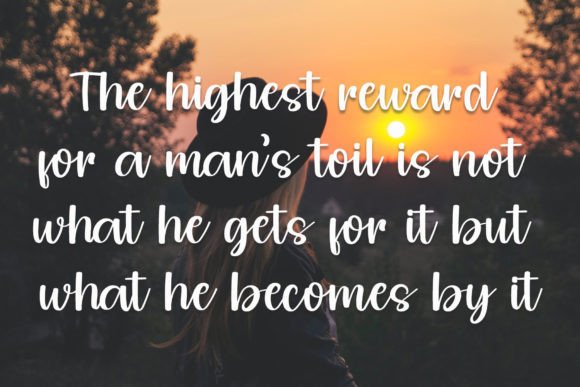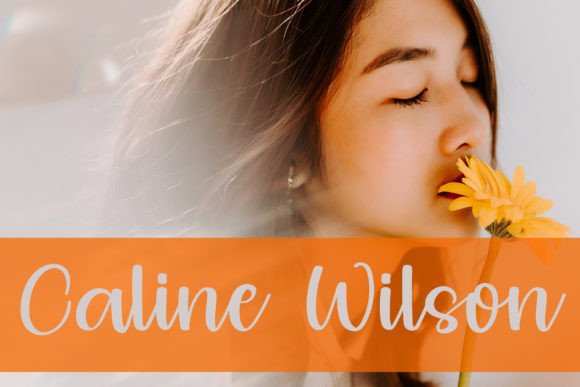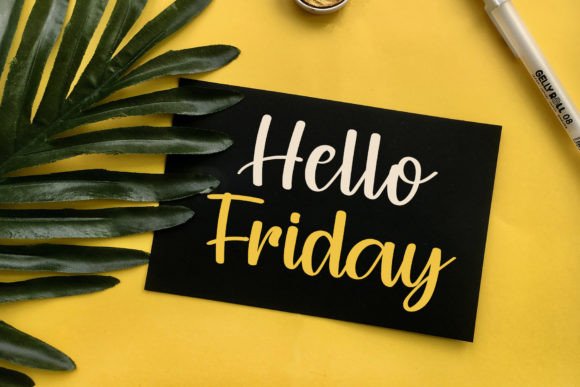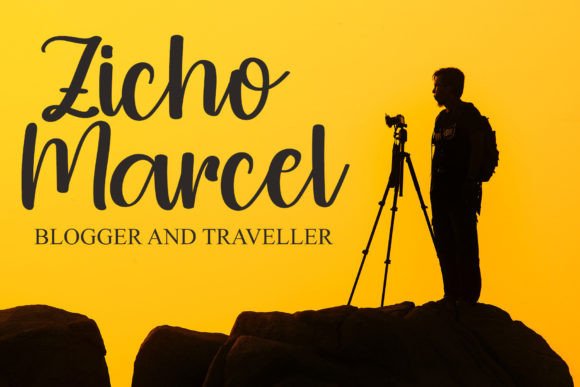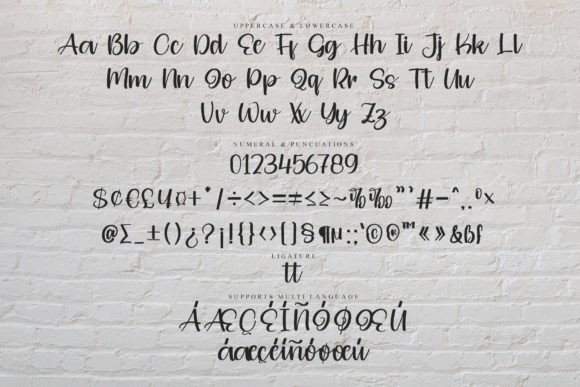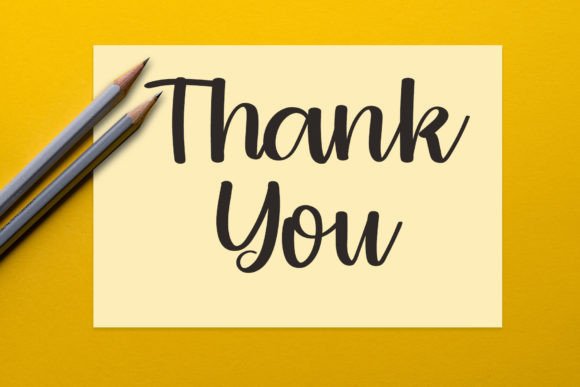
Knowing Font
The Knowing Font Download is a magical handwritten typeface designed to bring elegance and creativity to your projects. With smooth handwritten strokes and a refined aesthetic, it adds charm to everything from Instagram posts to professional branding. Whether you are designing greeting cards, posters, or digital graphics, Knowing turns every project into a piece of art.
A Magical Script with Elegant Energy
The Knowing script font blends delicate handwritten details with modern design balance. As a result, it feels classy yet approachable. Furthermore, it adapts easily to both small stationery projects and bold displays, which makes it a versatile tool for designers.
Handwritten fonts always add personality and warmth. The Knowing Font is perfect for wedding invitations, thank you notes, birthday cards, and seasonal greetings. Because of its elegant handwritten flow, each card feels unique and heartfelt. In addition, it helps make every message unforgettable.
Branding and Logo Design with Knowing Font
Typography defines how a brand is perceived. The Knowing handwritten font is excellent for boutique logos, product packaging, and promotional materials. Its magical handwritten strokes create a stylish and professional appearance. Therefore, it works especially well for fashion, lifestyle, and creative businesses.
Posters, Titles, and Creative Displays
The Knowing Font Download also shines in posters, book covers, magazines, and banners. It stays clear at every size while adding handwritten sophistication. Consequently, it is a strong choice for designers who want elegance and legibility in their layouts.
In today’s fast-moving digital world, fonts must attract attention while staying versatile. The Knowing typeface integrates seamlessly into Instagram posts, Pinterest boards, YouTube thumbnails, and blogs. Because of its magical handwritten charm, it makes digital projects stand out with elegance and creativity.
Why Designers Choose Knowing Typeface
Designers value fonts that balance personality with usability. The Knowing handwritten script keeps its magical charm while staying easy to read. This makes it suitable for professionals and hobbyists alike. Moreover, its timeless style ensures it remains fashionable across future projects.
Add Magical Elegance to Your Projects Today